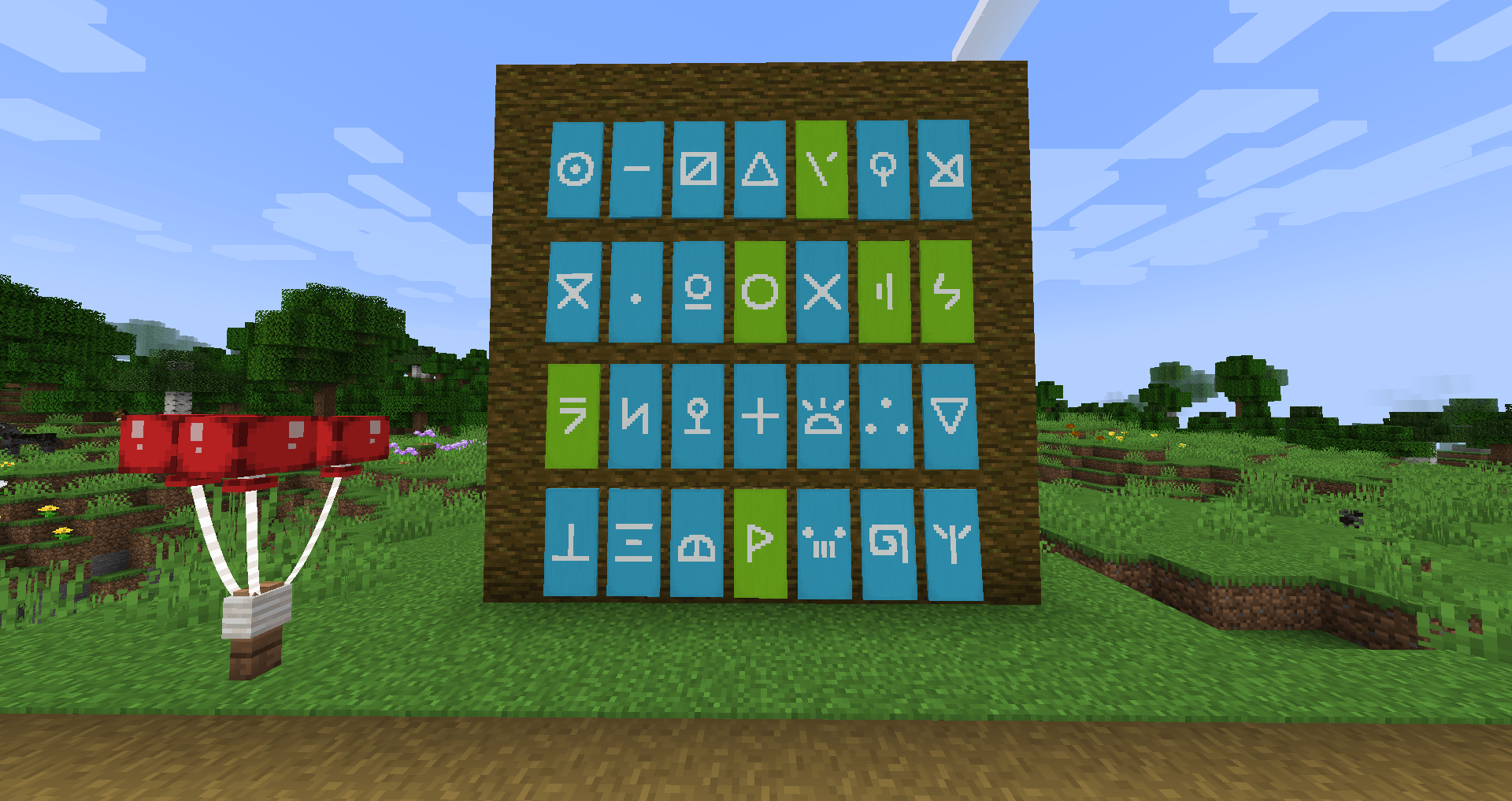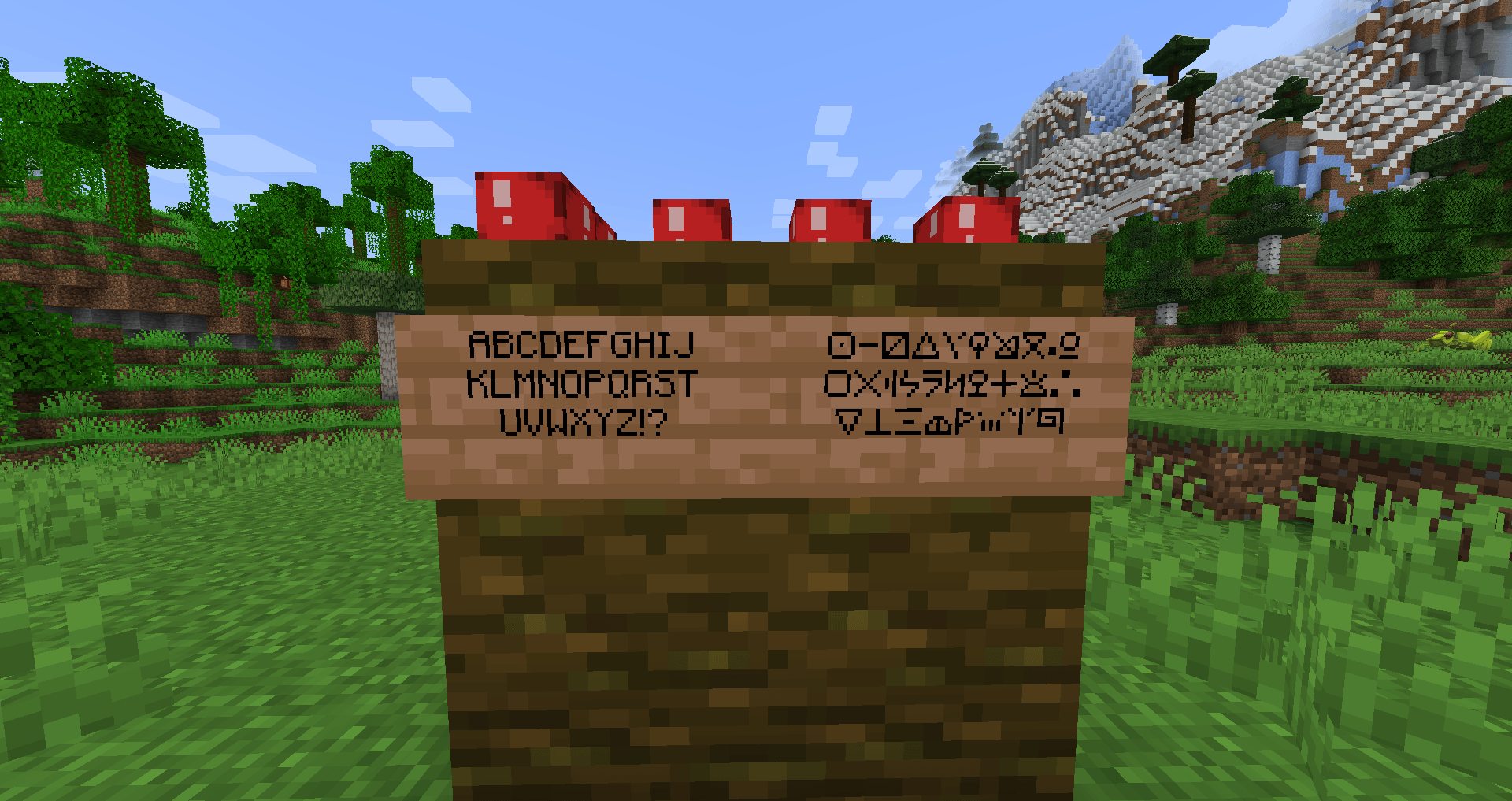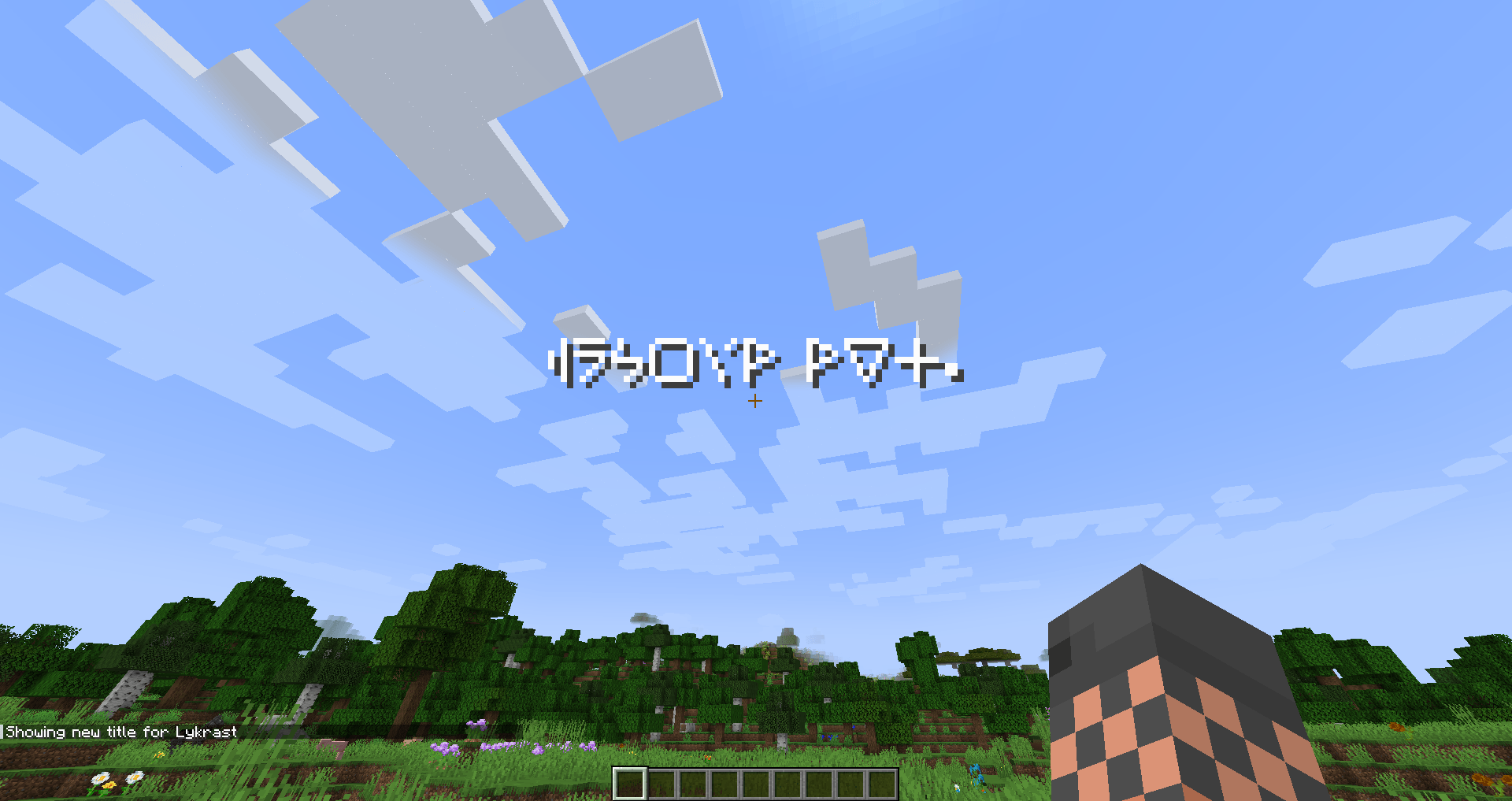
This mod adds a font based on the Monklish alphabet found in Bloons Tower Defense 6, as well as 28 banner patterns based on the 28 characters from it.
The font can be used by any JSON text (it has id monklishfont:monklish), such as with the /tellraw or /title commands on in custom item names. If you have Bookshelf, you can also use the /bookshelf font command for easy uses.
The font supports:
- All 26 latin letters A to Z (upper and lowercase are displayed the same),
- Exclamation (!) and question mark (?),
- Arab numerals and various punctuation which are unchanged from the base font (as they are used in Monklish text in game).